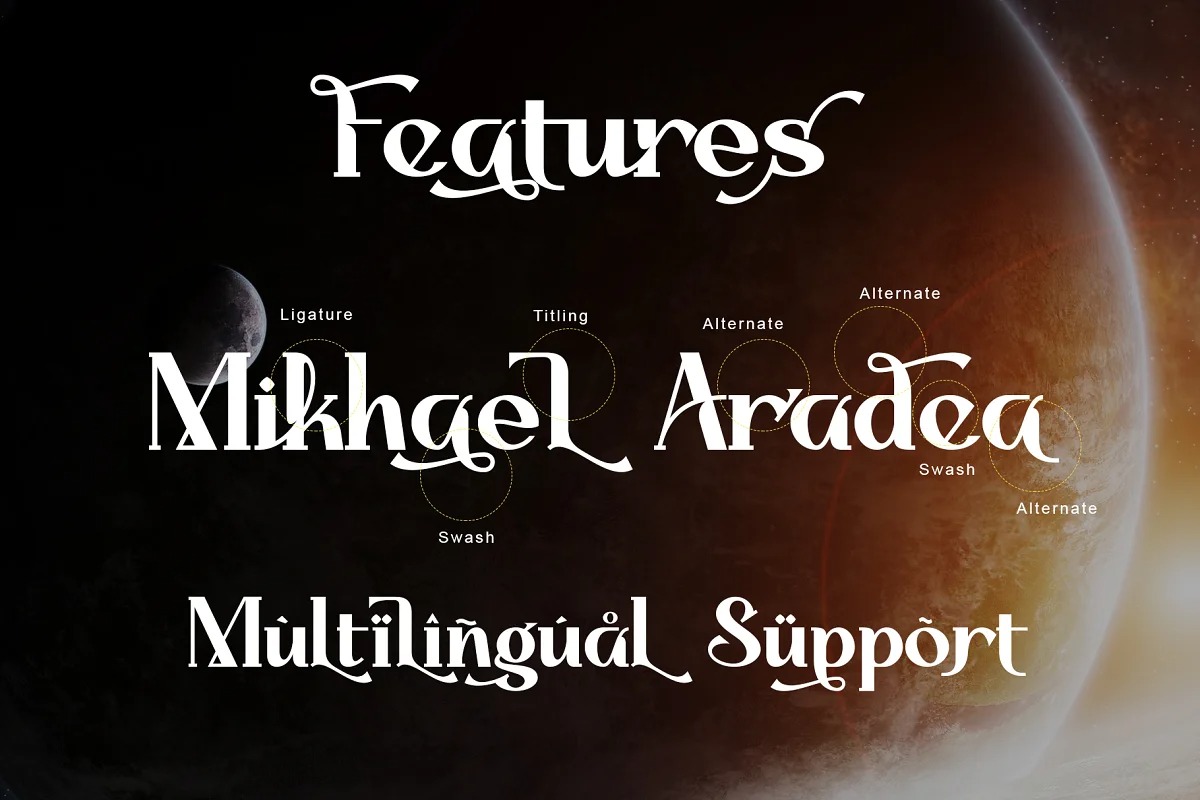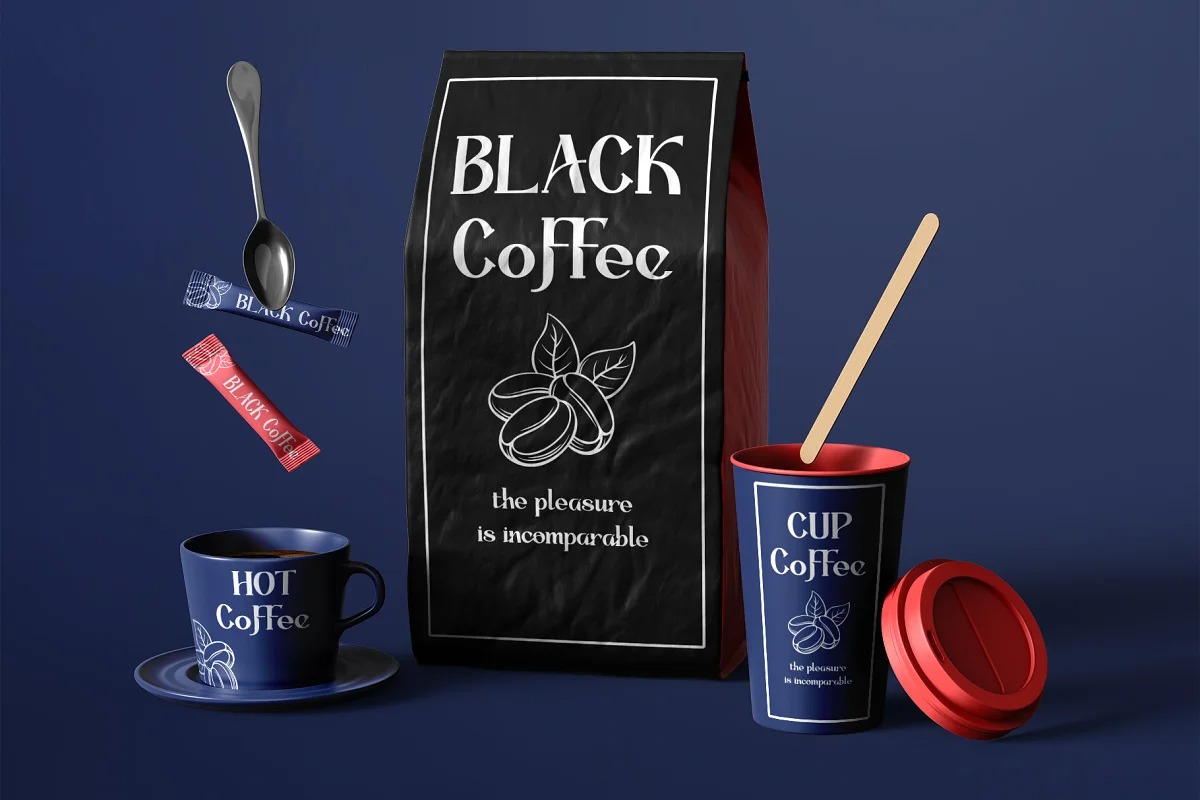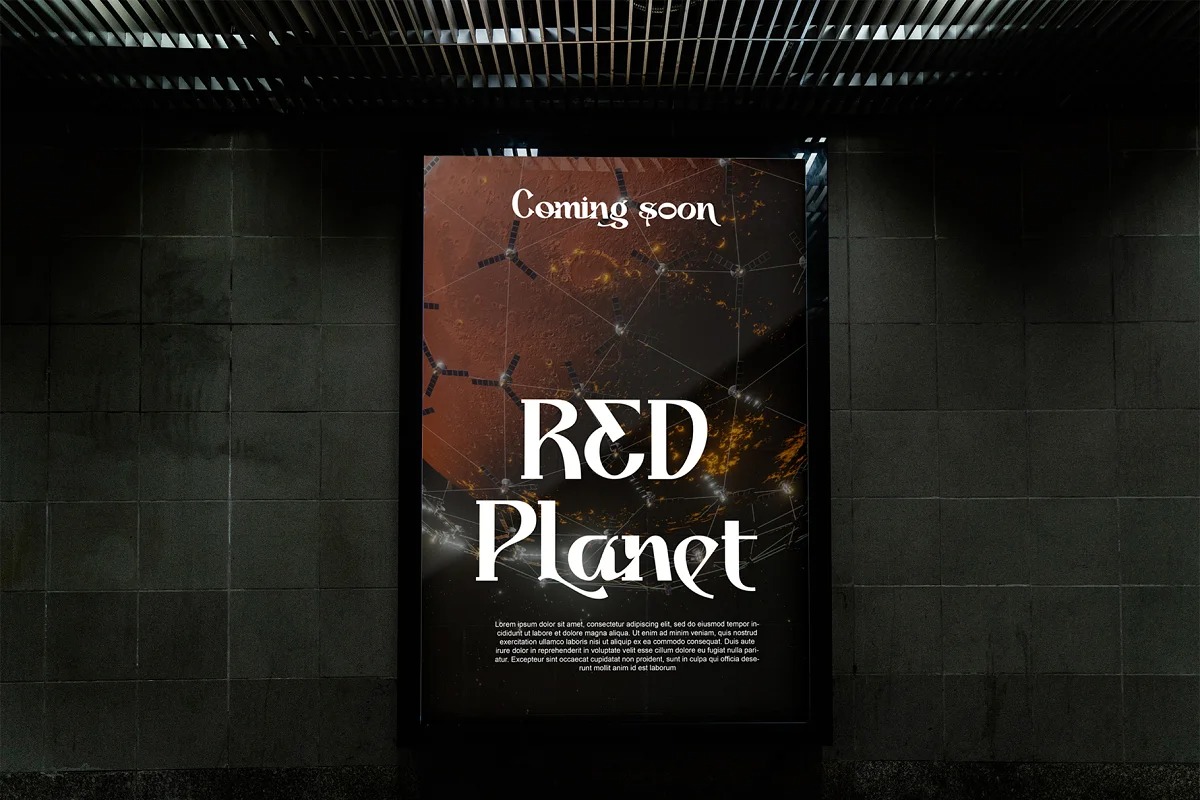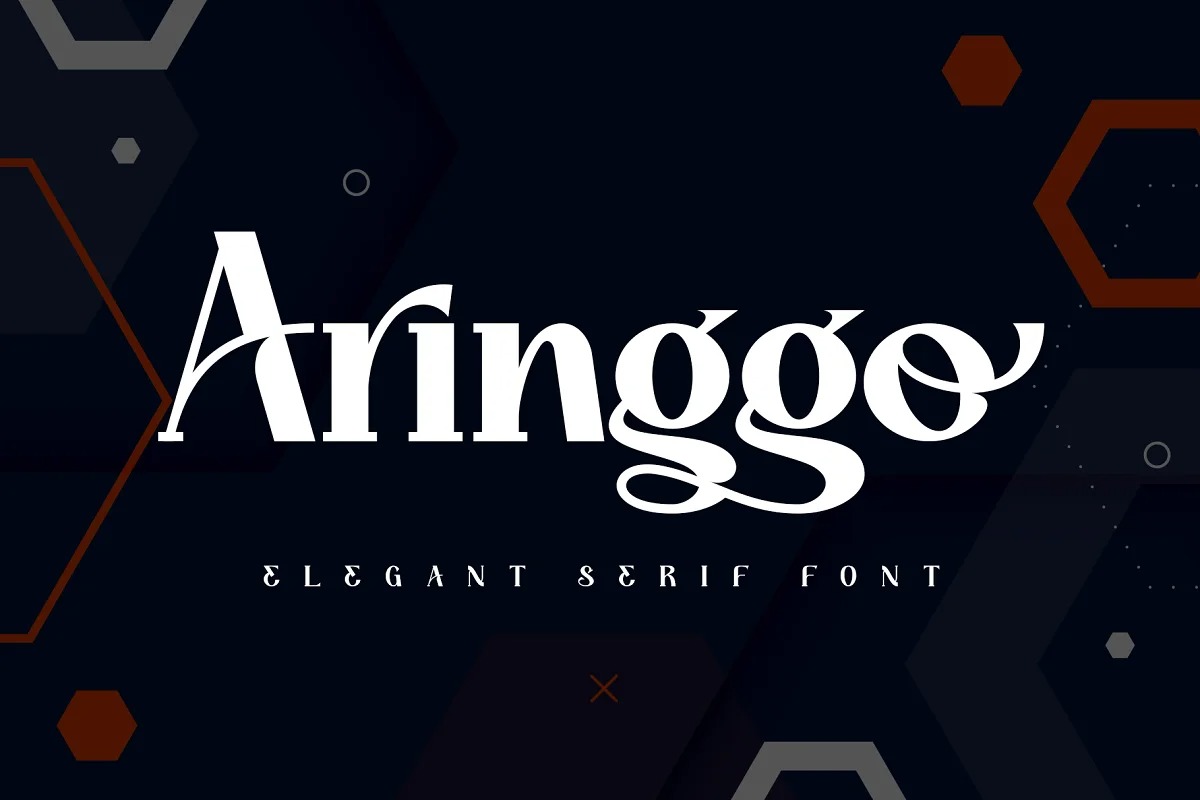
Aringgo Font
Aringgo Serif Font is a modern serif typeface created by Thomas Aradea with elegant and beautiful touch, with smooth curves and sharp edges. It is suitable for a wide variety of designs due to its neat and clean style. Incredibly versatile, this font fits a vast pool of designs, elevating them to the highest levels. Comes with some alternates and ligatures, so you can combine them to make a perfect typography design. It is ideal for your upcoming projects. Such as luxury logo and branding, classy editorial design, magazines, Packaging, poster, movie, cosmetic brand, fashion promotions, art gallery branding, and more. This font is PUA encoded which means you can access all of the glyphs.